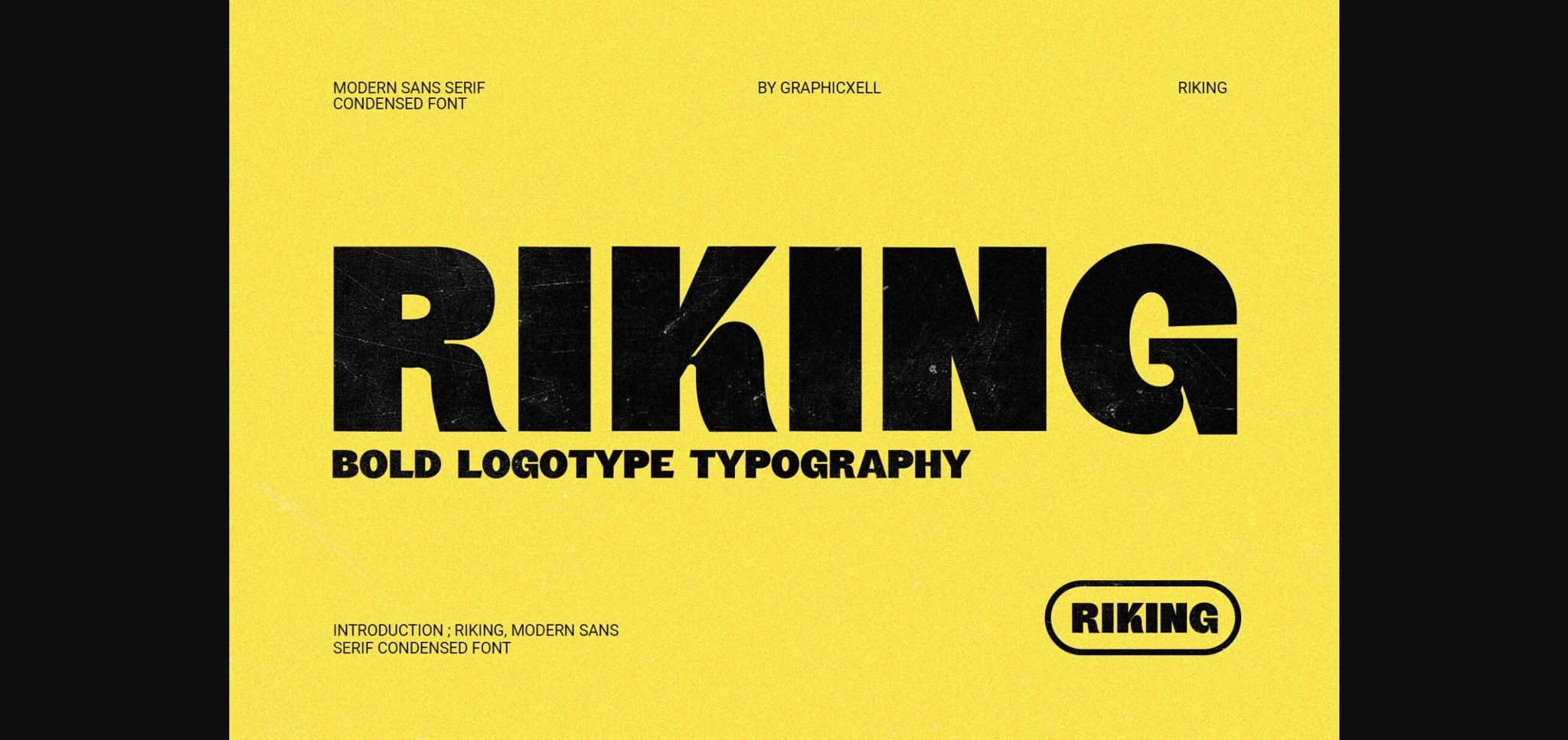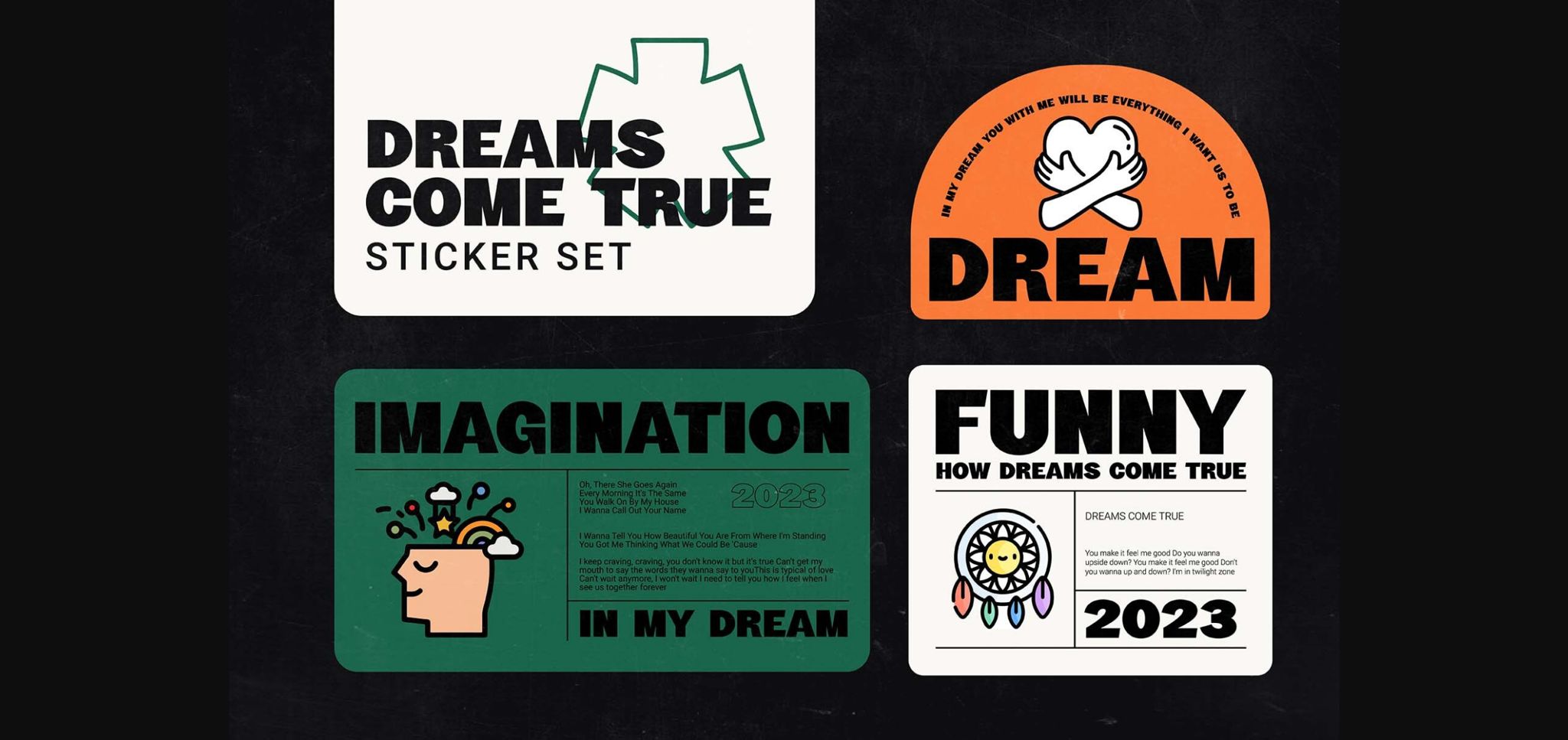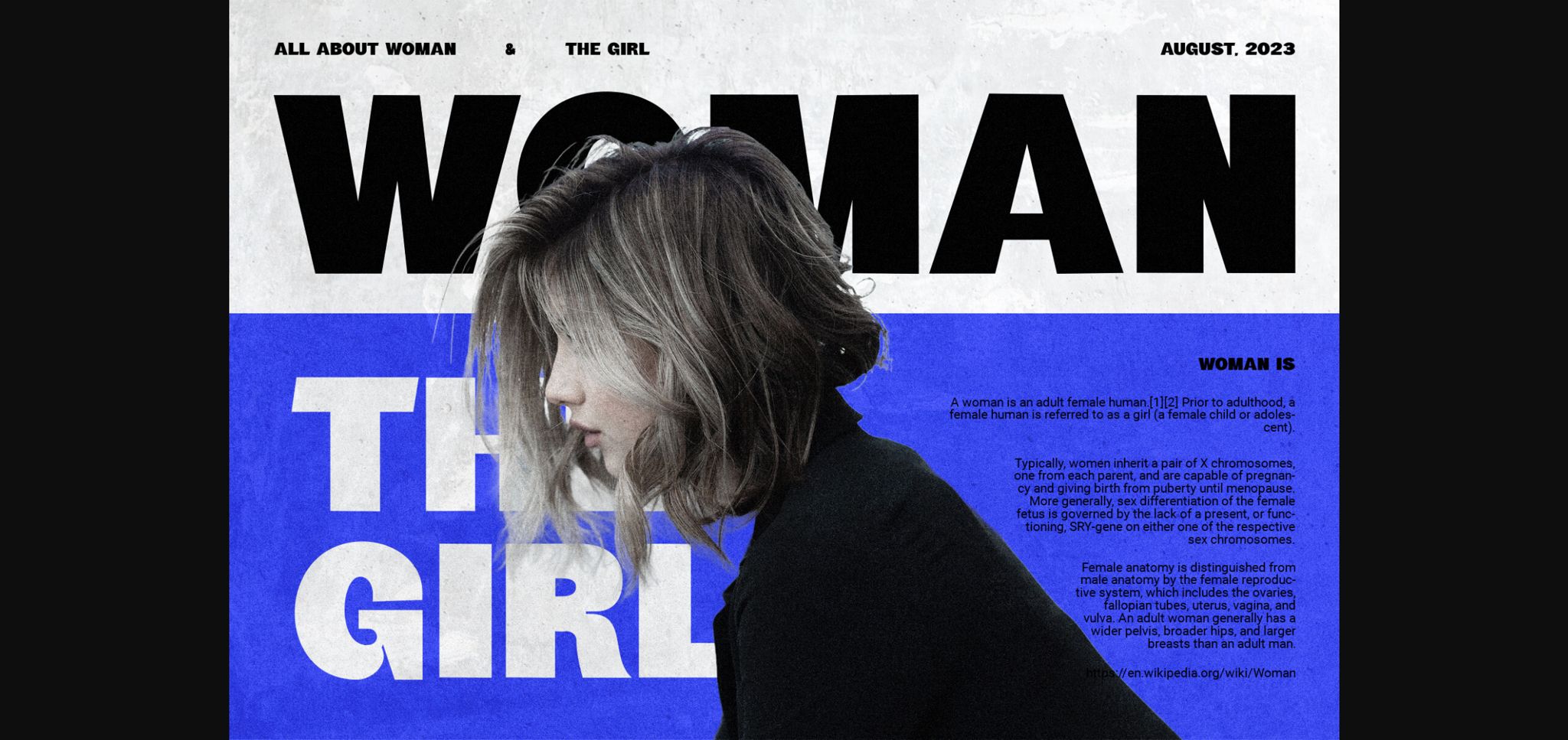
About Riking Font
Riking font is a sleek and contemporary condensed sans-serif typeface that embodies modern simplicity and sophistication. With its clean lines and compact design, Riking is the perfect choice for projects that demand a minimalist and stylish aesthetic. Whether you’re designing logos, headlines, or digital interfaces, Riking font delivers a sharp and professional look that makes a bold statement.